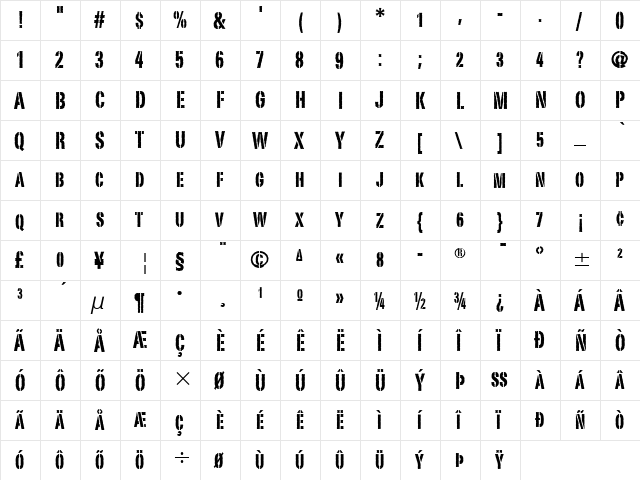
Portago ITC Regular
| Foundry | International Typeface Corporation |
Portago ITC takes a measured approach to typography — its balanced proportions and neutral character make it a reliable workhorse for both digital and print work.
Pro Tip: Use Portago ITC in both headline and body roles to test its range before committing to a single application.